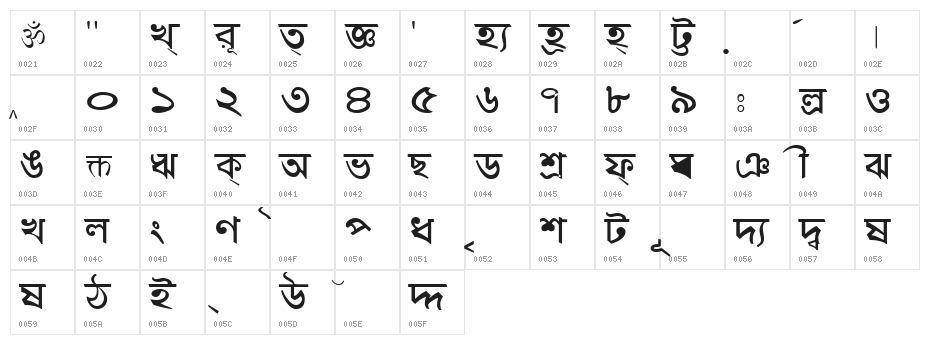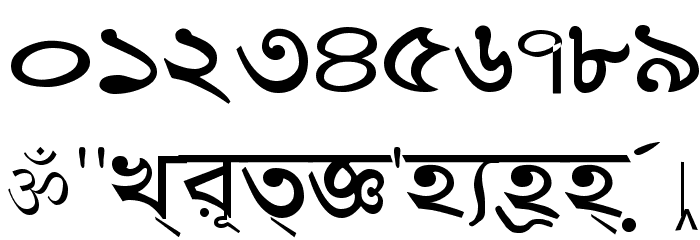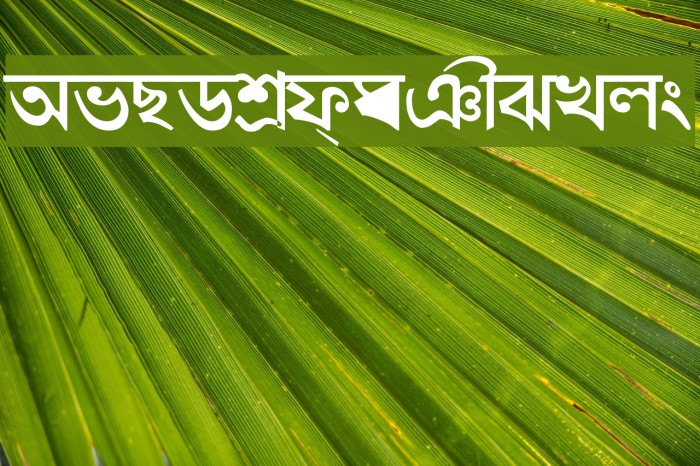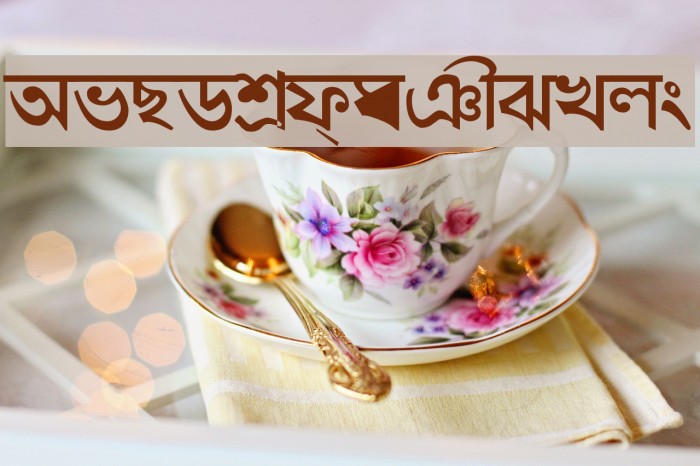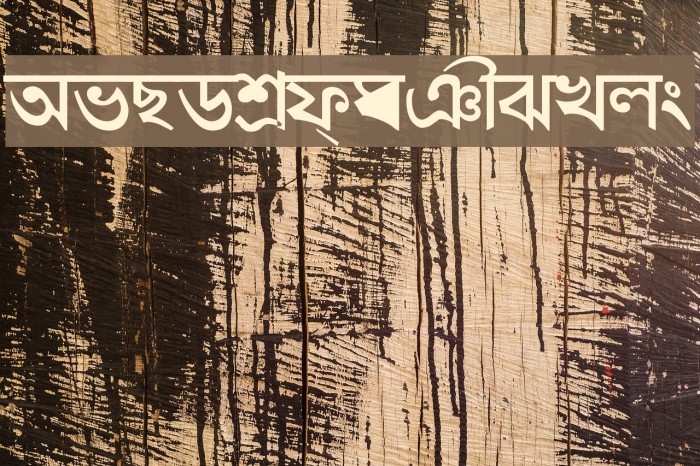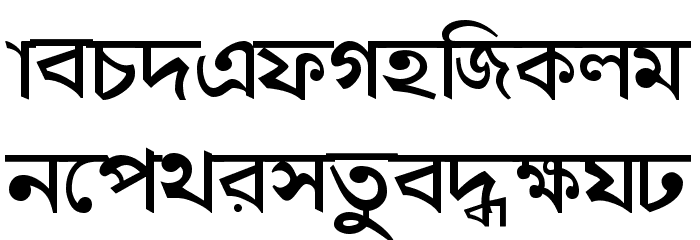
Shymal01 Font
| Stile generale | Traditional |
| Caso d'uso | Headlines, Cultural texts, Branding |
| Progetti proposti | Ideal for cultural publications, traditional event invitations, and heritage branding. |